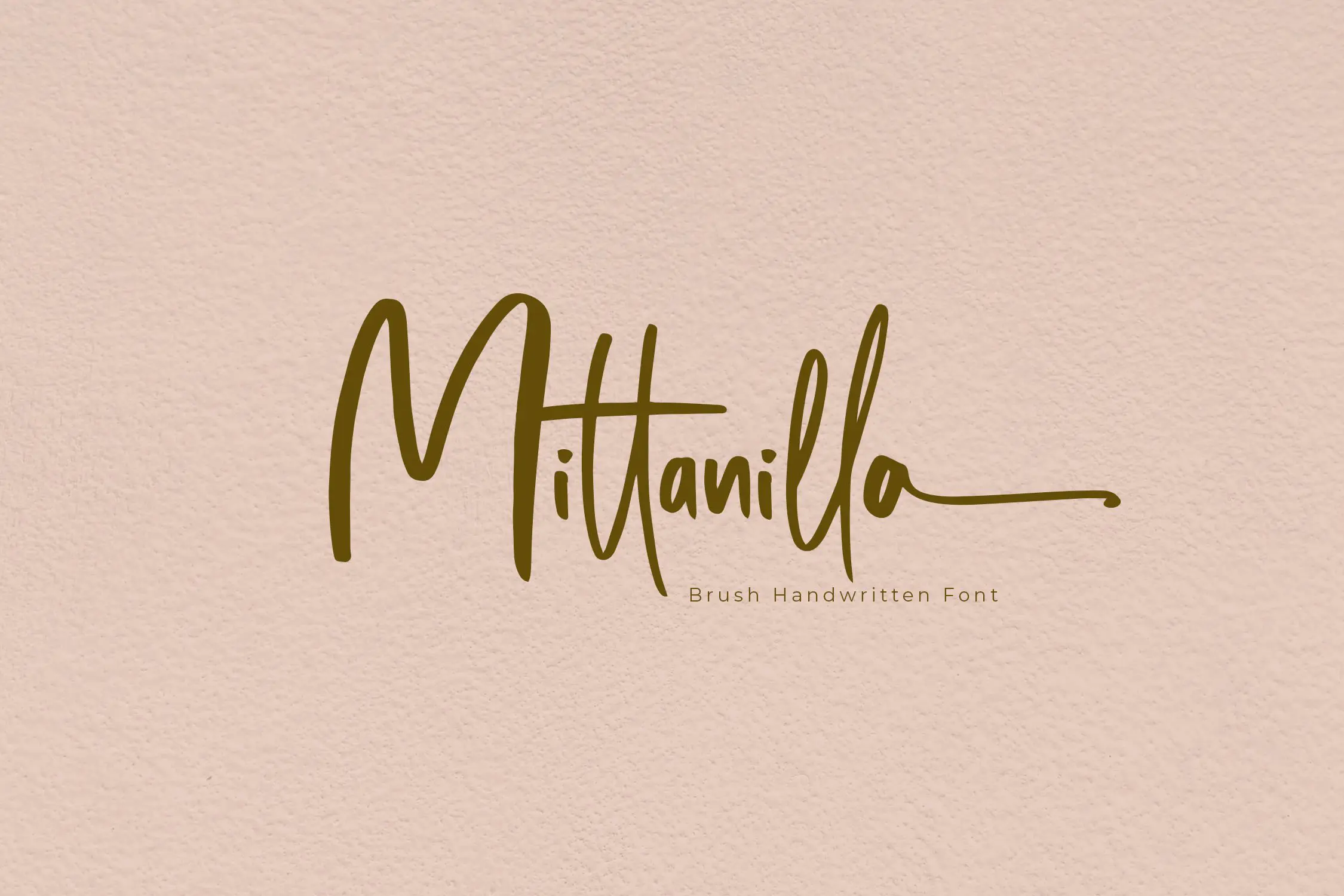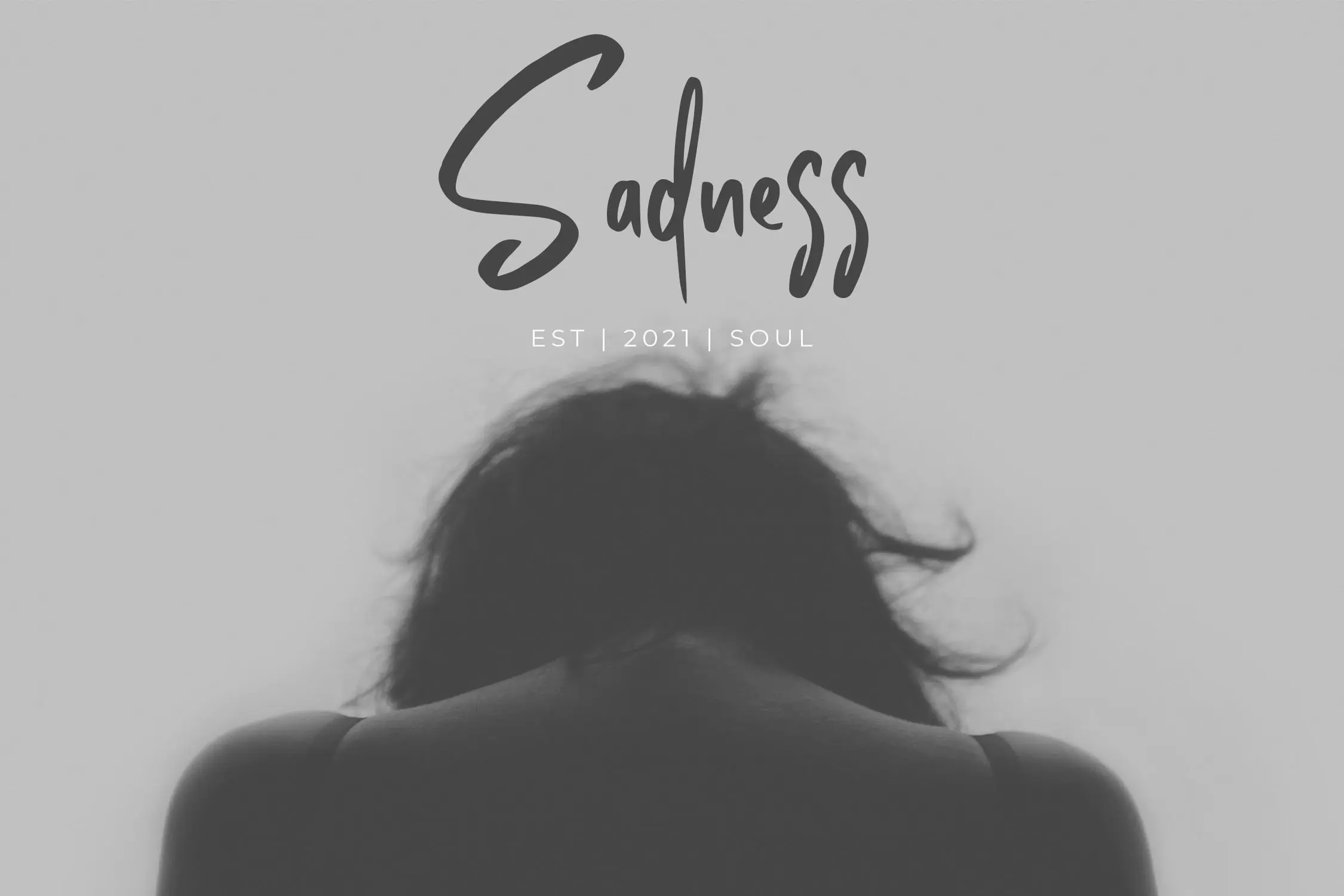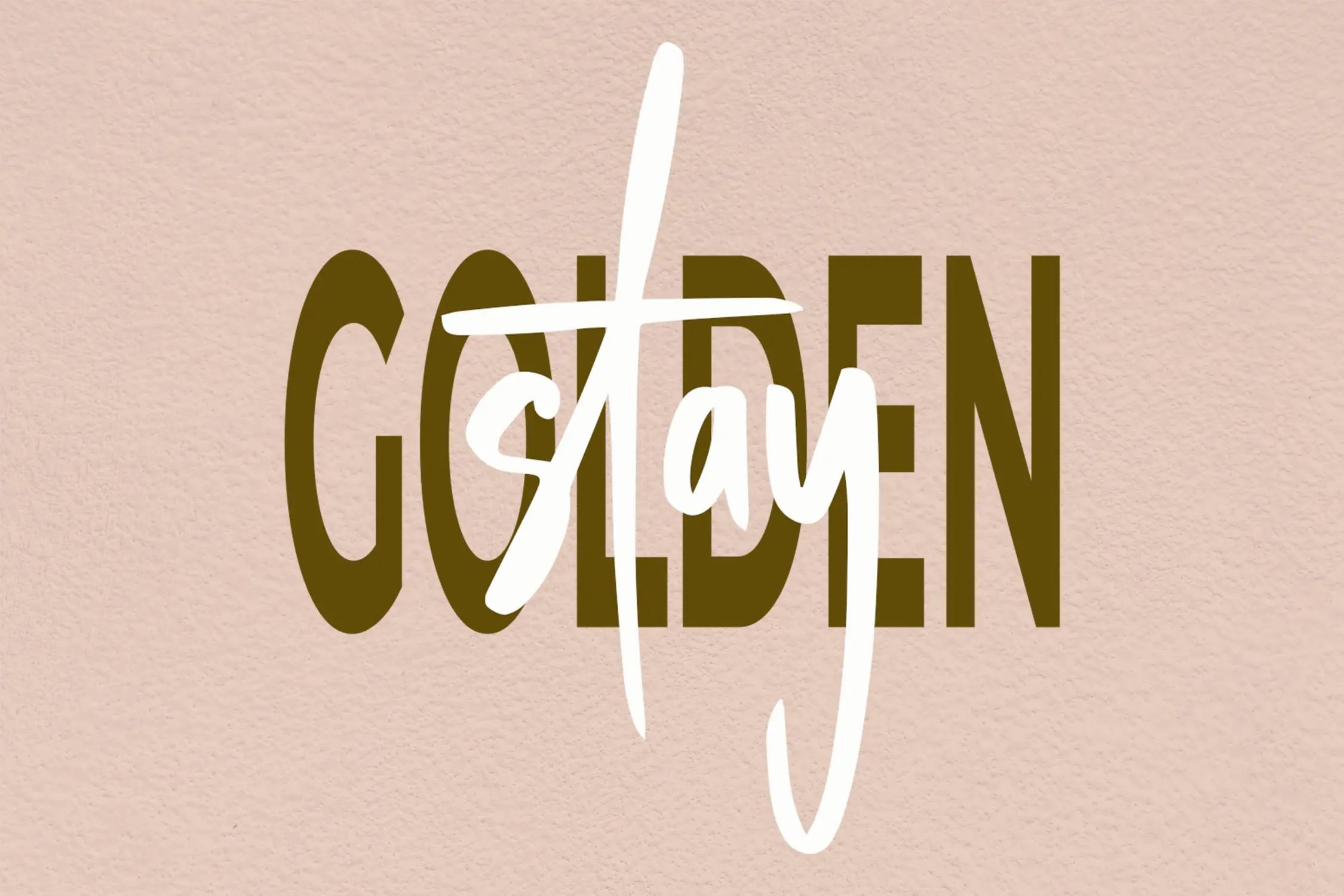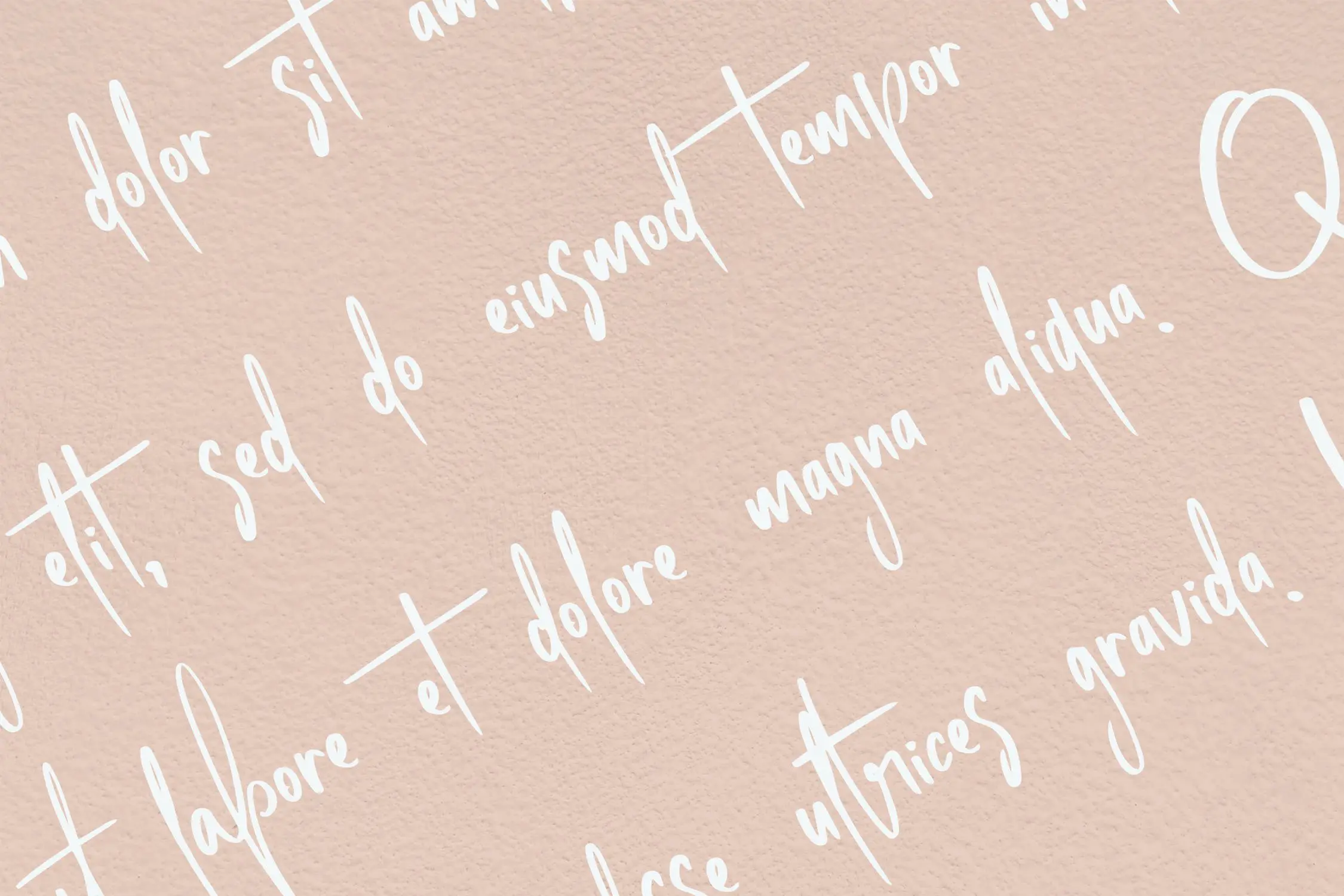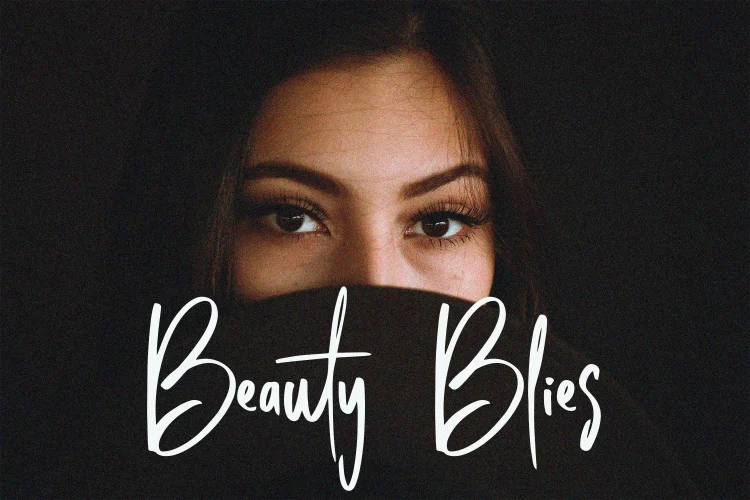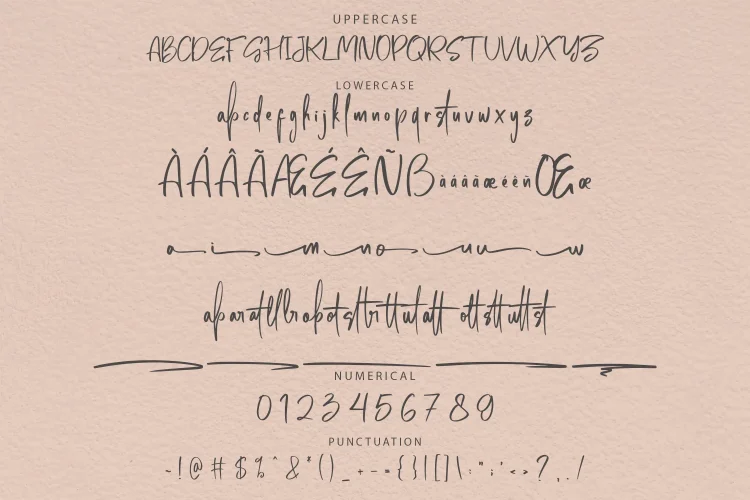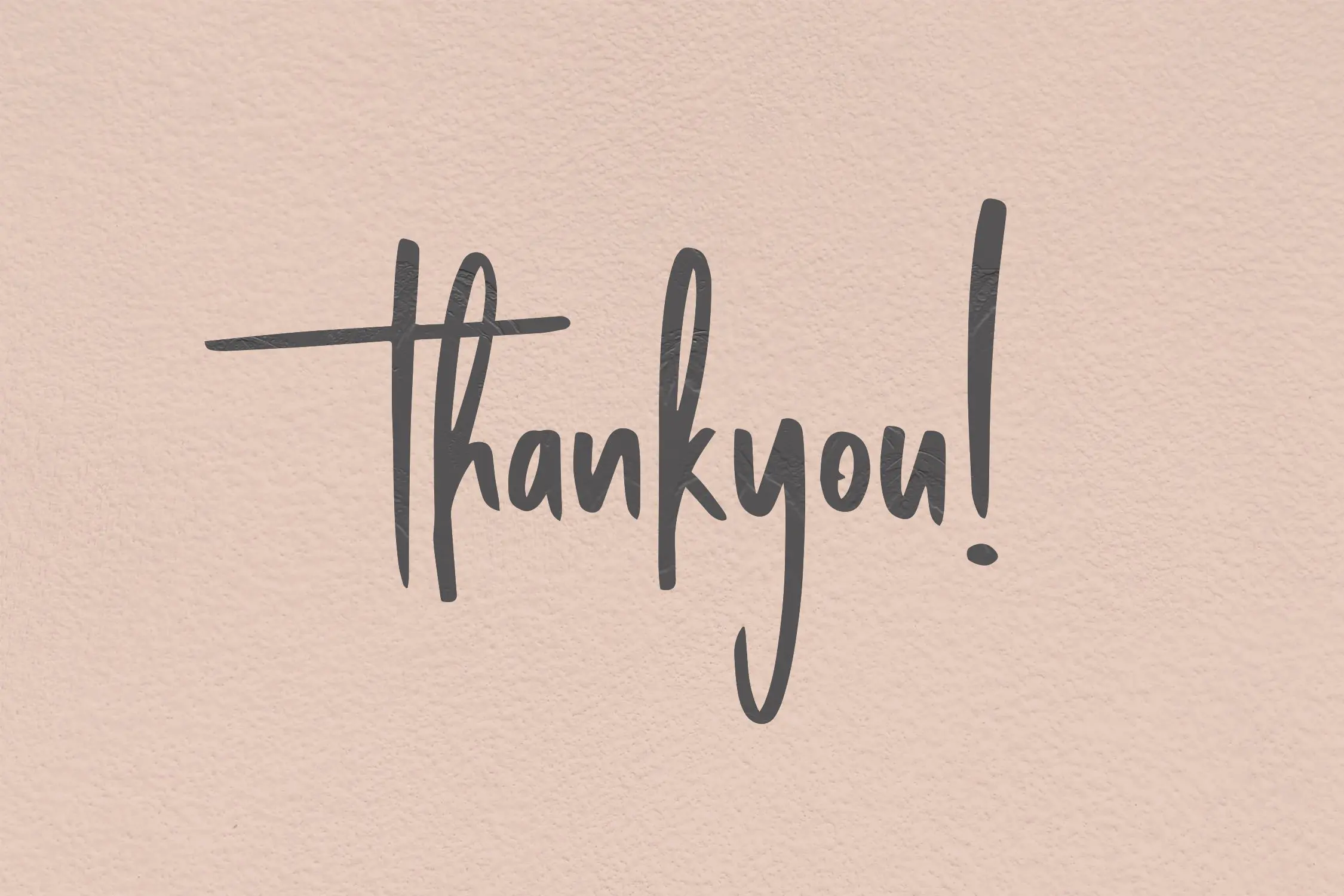
Mittanilla
Mittanilla – Elegant Handwriting Brush Font
Introducing Mittanilla, a captivating handwriting font featuring a stunning brush style. Crafted with unique and intricate character shapes, this font adds a uniqueness and artistic touch to your designs. Whether you’re working on branding, invitations, or creative projects, Mittanilla enhances the visual appeal and brings your ideas to life.
• Includes ligatures, stylistic alternates, and swashes
• Multilingual support for a broader range of applications
Elevate your designs with the enchanting Mittanilla brush handwriting font!